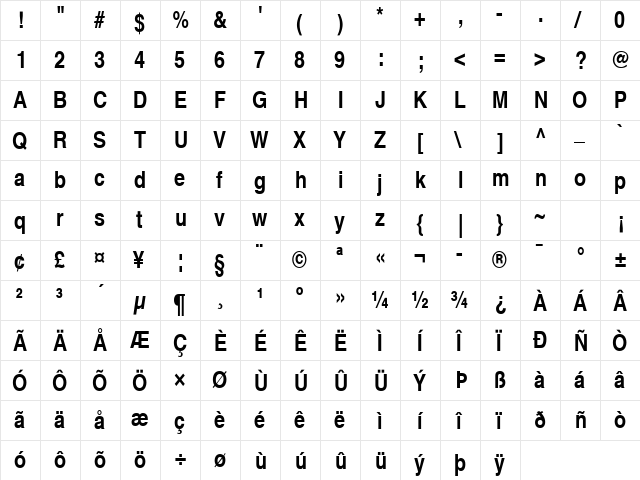
Helvetica Narrow S Bold
Design Context for Helvetica Narrow S Typeface
Helvetica Narrow S offers clean, dependable letterforms without strong stylistic allegiance, making it a practical choice for designers who need flexibility. The heavy weight commands attention and anchors typographic hierarchies. The condensed width makes it efficient for tight spaces without sacrificing legibility.